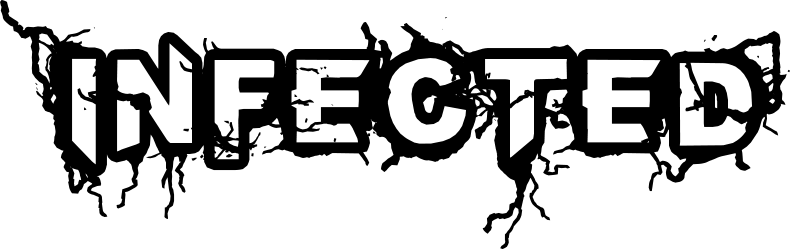
Infected Font
Infected is a that does not support lowercase and punctuation. Using a different font such as Infected in your artwork would be your game-changer and can drastically increase the quality of your graphic content. Infected conveys a sense of clutter and grunge, making it suitable for designing teen-friendly content such as posters and video game logos.